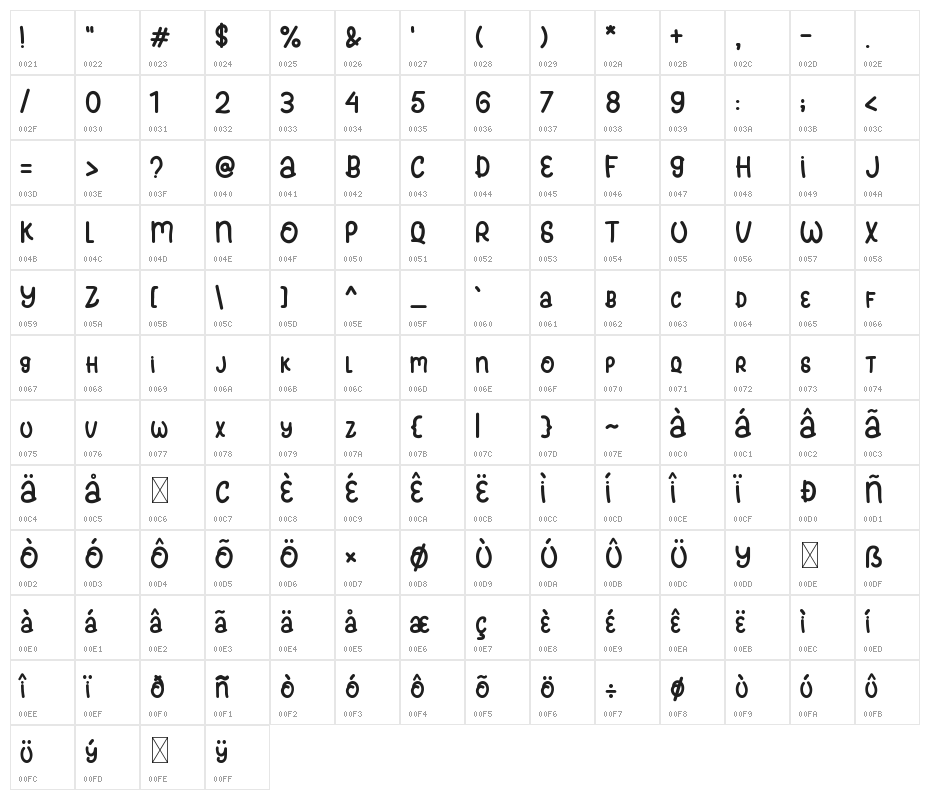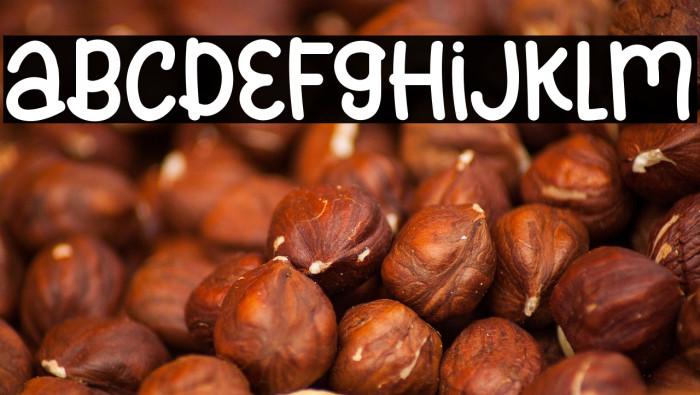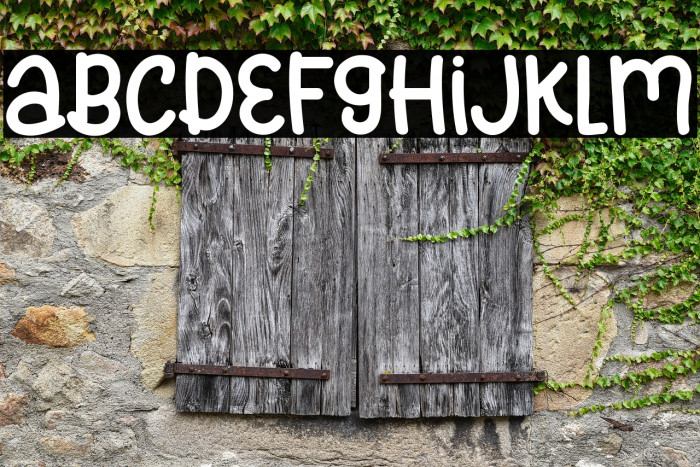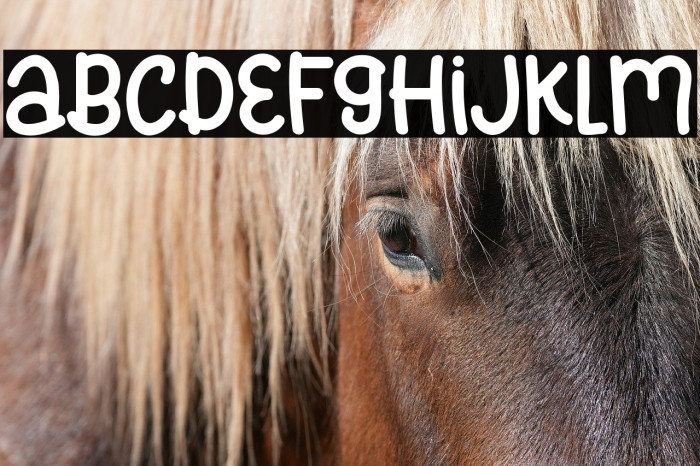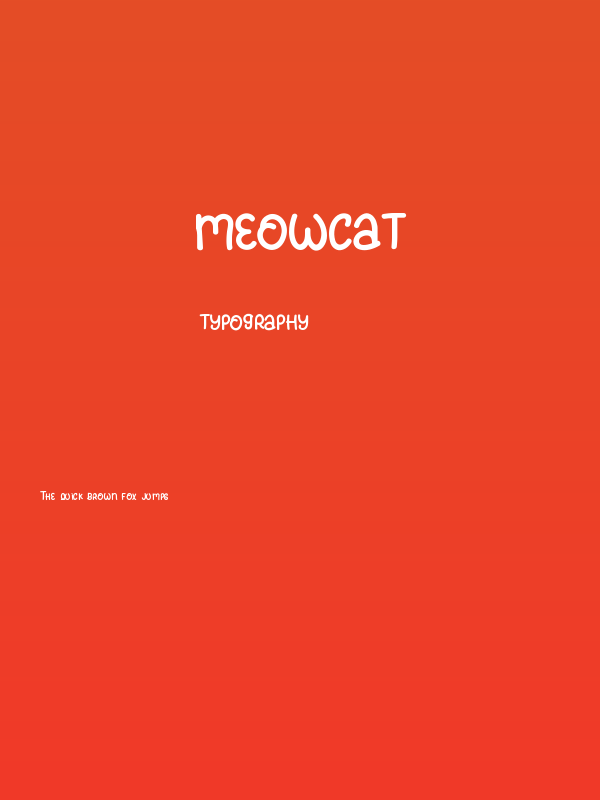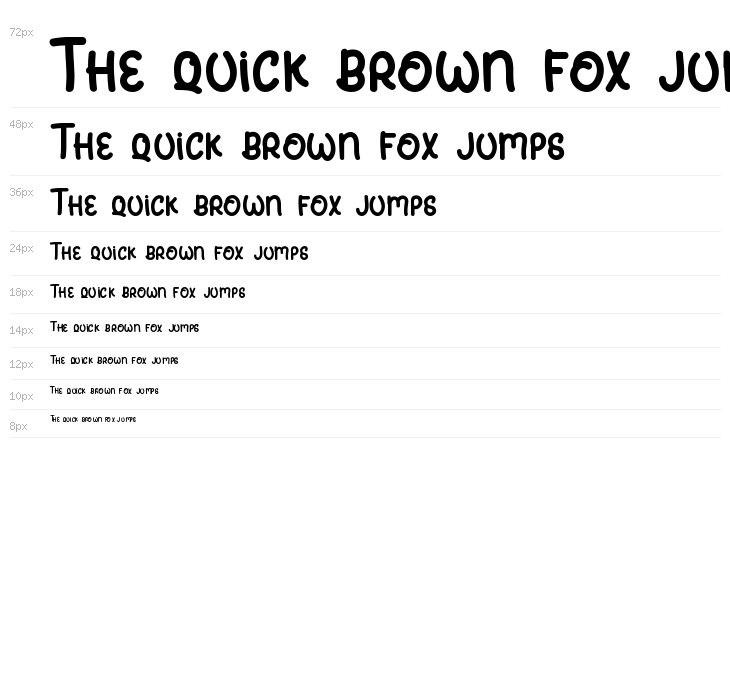
Meowcat Font
Meowcat Description
This playful and whimsical font features rounded, bold characters with a hand-drawn appearance. The letters have a consistent stroke width, giving them a uniform look, while the rounded edges add a friendly and approachable feel. The uppercase and lowercase letters maintain a similar style, with the lowercase letters slightly smaller in size. Numbers and special characters follow the same design principles, ensuring a cohesive look across all elements. This font's unique style makes it stand out, perfect for projects that require a touch of fun and creativity.
| Proposed Projects | Ideal for children's books, playful branding, greeting cards, and casual invitations. |